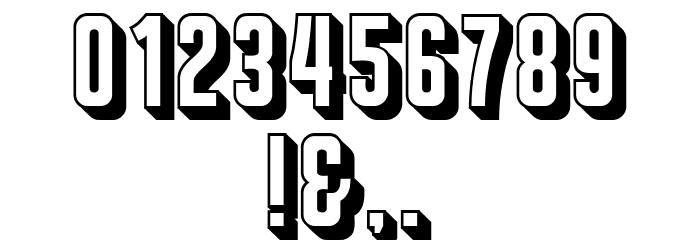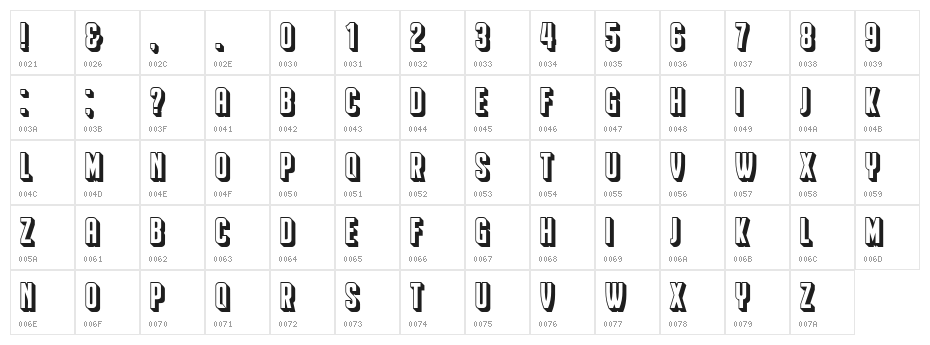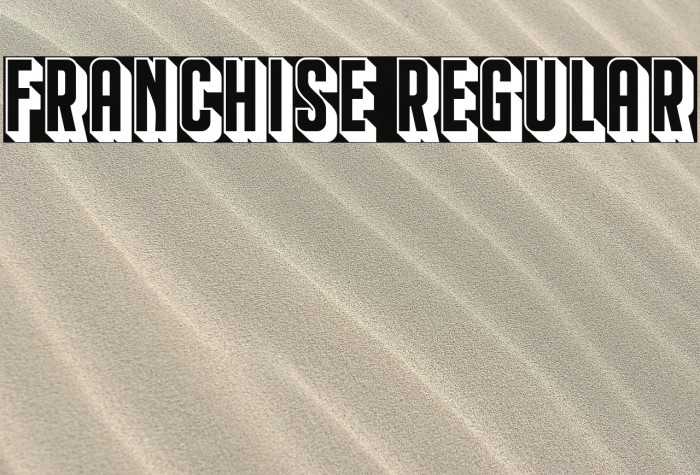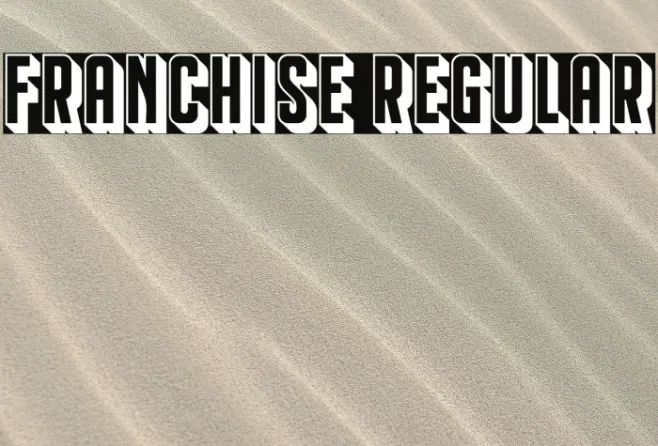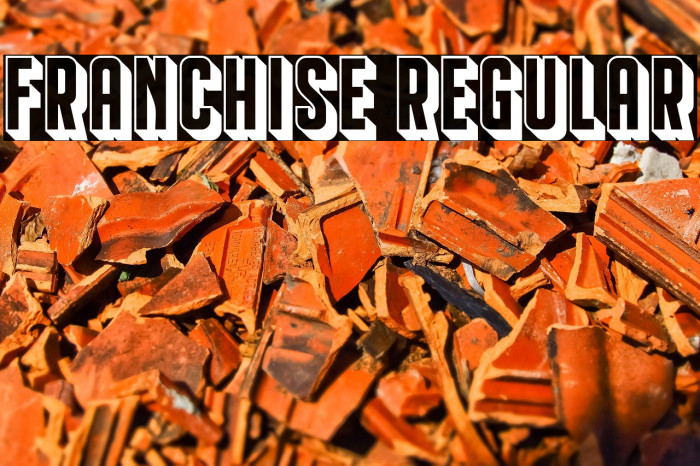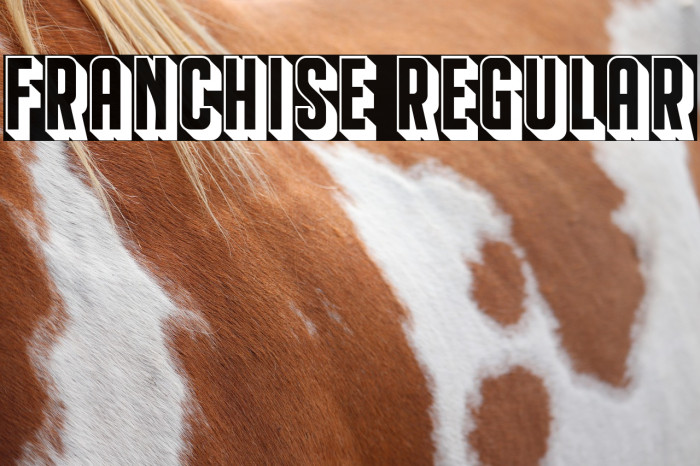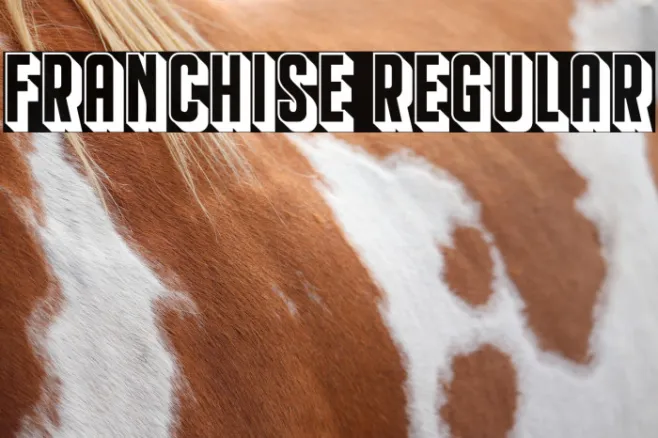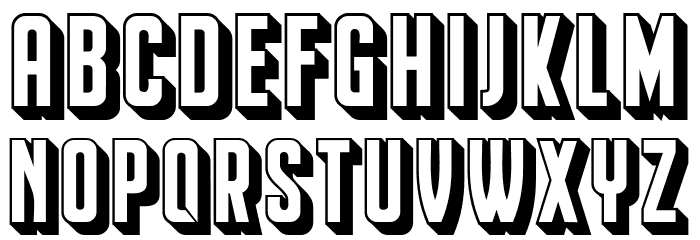
Franchise Regular Font
Franchise Regular Description
This font features a bold, impactful design with a strong presence, characterized by its blocky, geometric letterforms. The letters are uppercase and exhibit a three-dimensional effect with a shadow that gives them a standout appearance. The strokes are consistent in width, contributing to a uniform and structured look. The font's style is reminiscent of vintage signage or poster typography, making it ideal for attention-grabbing headlines. The characters are tightly spaced, enhancing the compact and cohesive feel of the text. Overall, this font exudes a sense of strength and authority, perfect for projects that require a commanding visual impact.